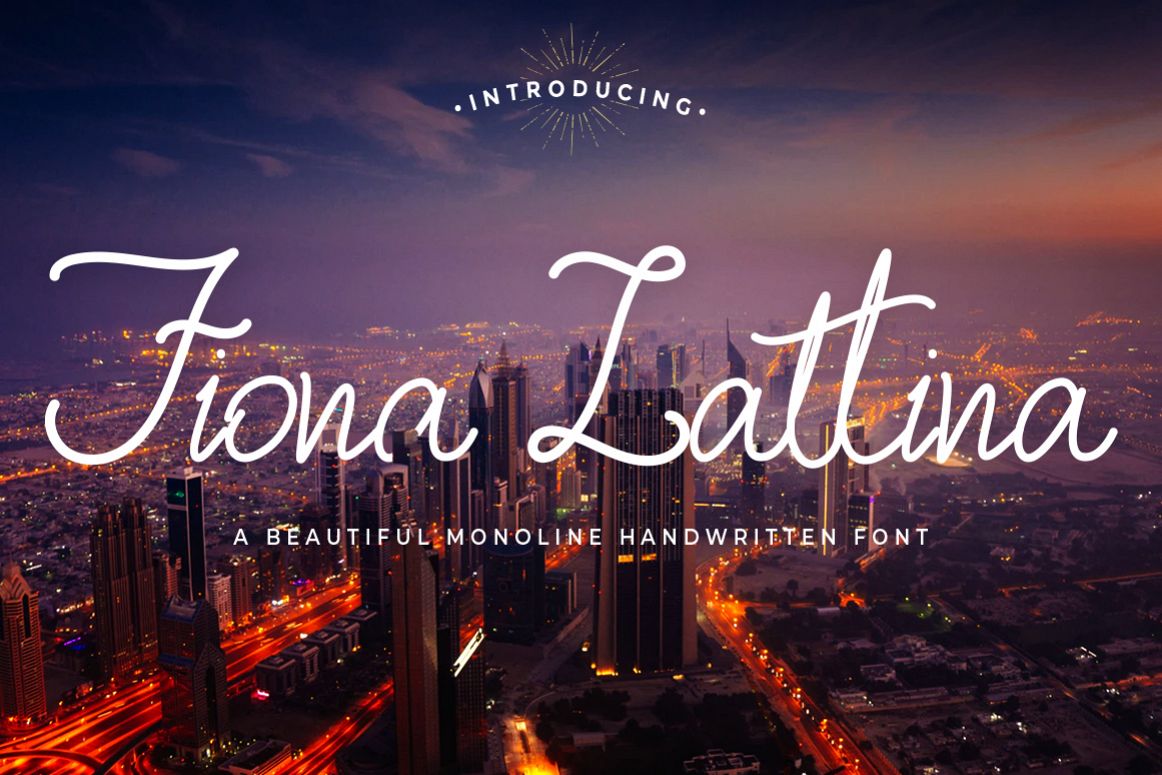
Monoline Handwritten - Fiona Lattina
Introducing Fiona Lattina – A Beautiful Handwritten Font. Made with naturally handwritten and modern style, it brings beautiful and modern typeface.
Fiona Lattina font would be perfect for logos & branding, photography, watermark, social media posts, advertisements, invitation, product designs, label, stationery, wedding designs, product packaging, special events or anything that need handwriting taste.